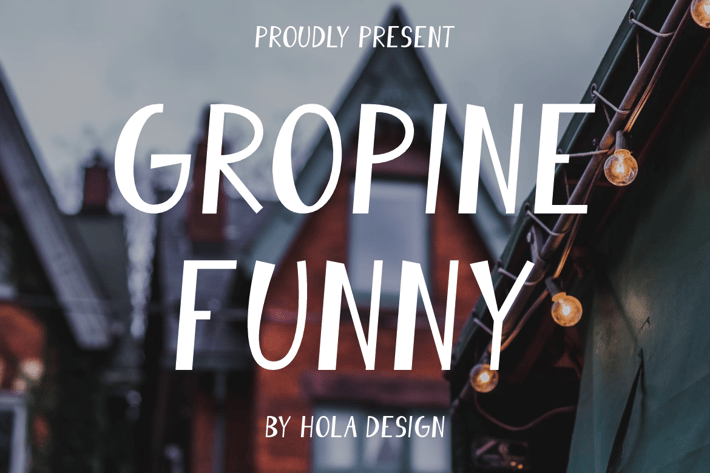
Gropine Funny - Sans Serif & Light Font
Gropine Funny Font is unique . Ready to use for your design like labeling, movie sceen, poster, movie title, gigs, album covers, logos, and much more.